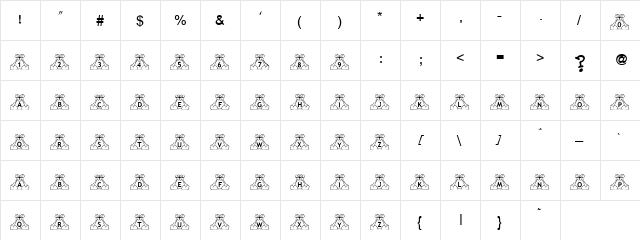
Puppy Home Slento Regular Font Preview
Puppy Home Slento Regular
Design Context for Puppy Home Slento Typeface
Puppy Home Slento is a composed and adaptable typeface that performs quietly and consistently across a wide range of design contexts.